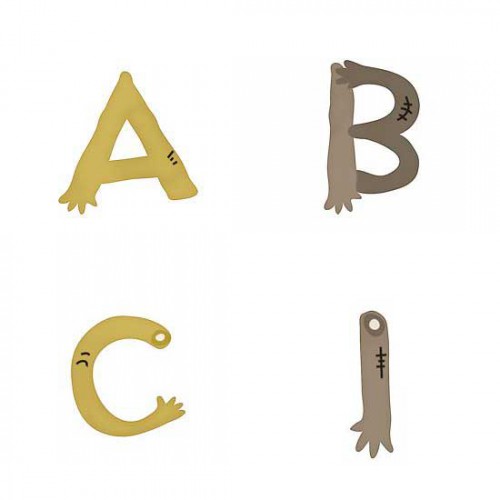
The Zombie Arms alphabet puts a whole new spin on "raise your arm if you know the answer..." Generally, we'd like the arms to stay attached to the body, don't you agree? But if you need a bit of the "freaky factor" added to your creations, here's a good choice!